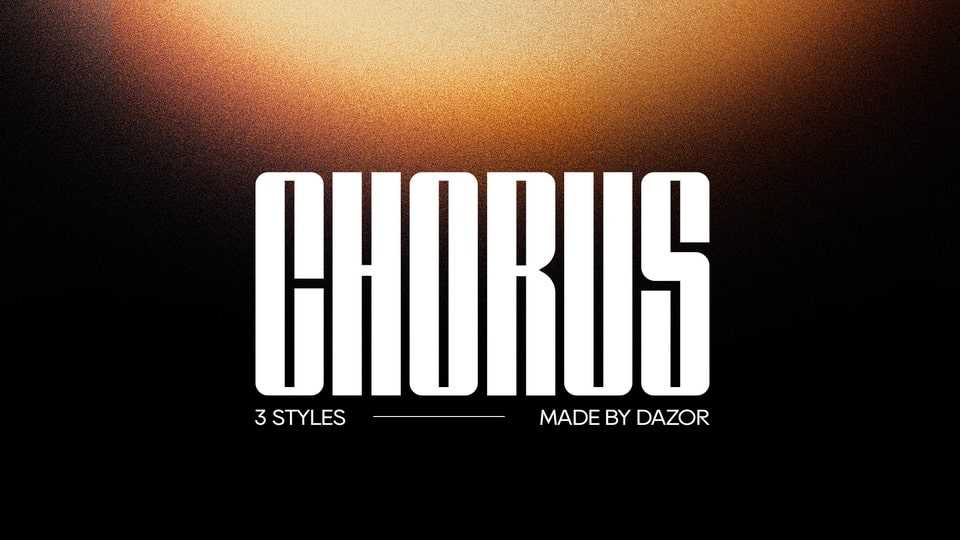
Download CHORUS font, a bold and modern display typeface inspired by the dynamic world of contemporary music. With its tall, condensed letterforms and strong geometric presence, it creates a powerful rhythm on the page.
Designer: Dazor